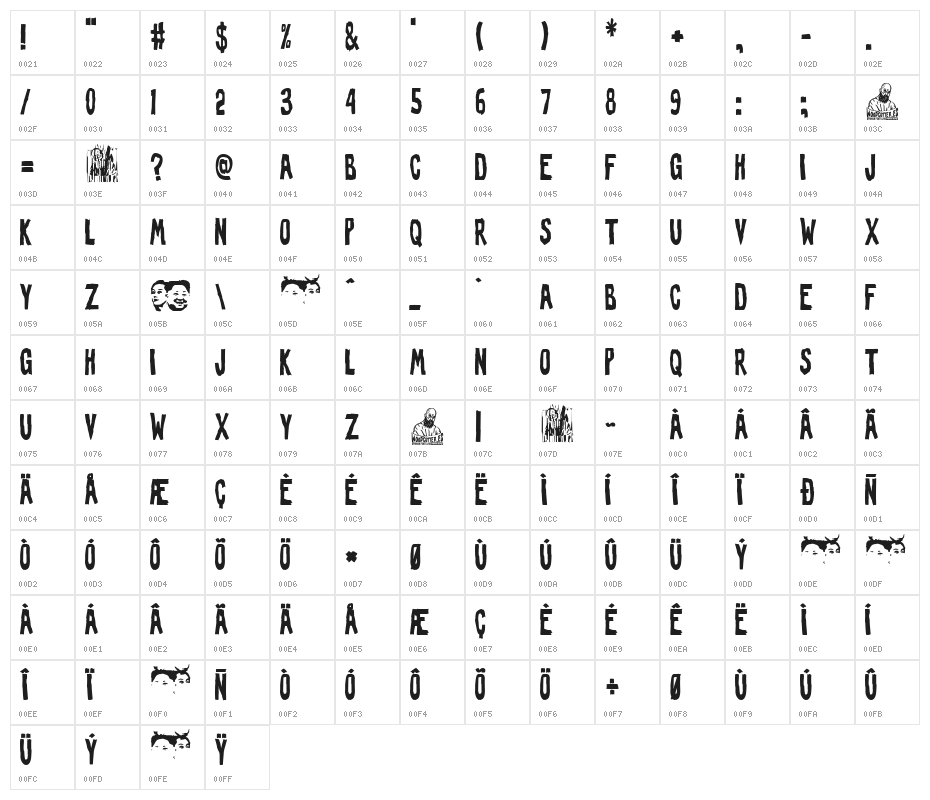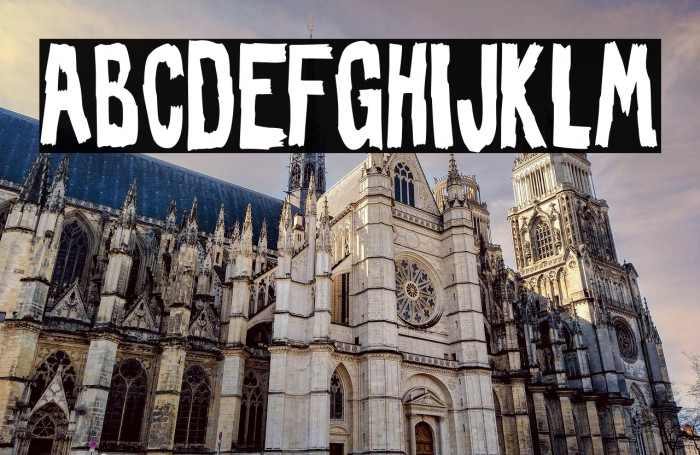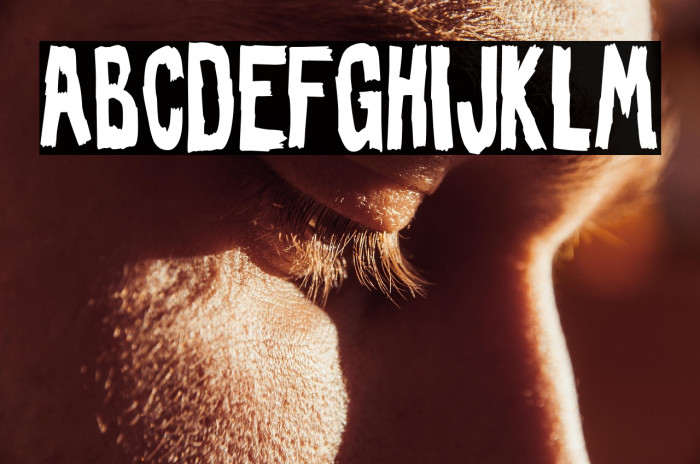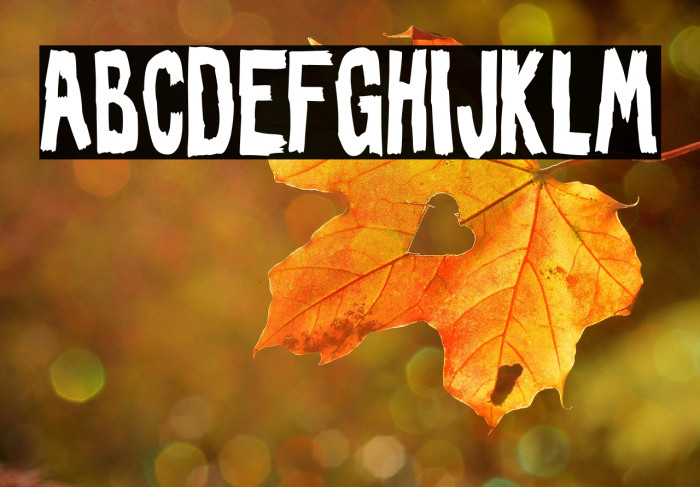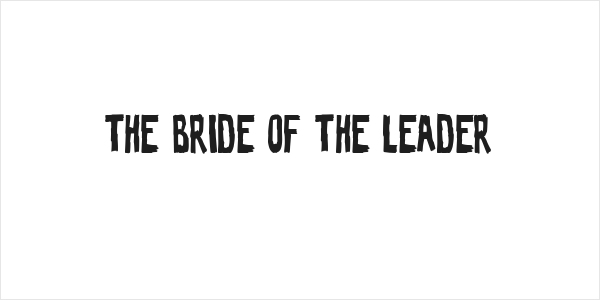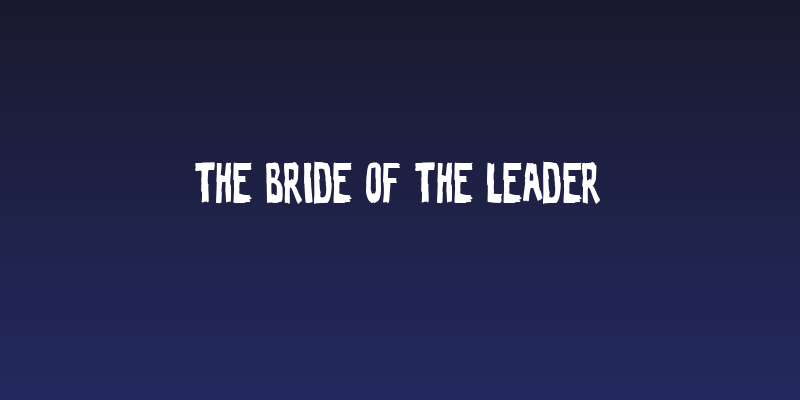
The Bride of the Leader Font
The Bride of the Leader Description
A bold, hand-drawn display font with irregular, jagged edges and uneven stroke widths, giving it a rough, expressive, and energetic appearance. The characters are uppercase, tall, and slightly condensed, with a playful, chaotic feel.
| Overall Style | Decorative, Expressive, Grunge |
| Use Case | Headlines, Posters, Logos, Event Promotions |
| Proposed Projects | Horror movie posters, Halloween invitations, comic book titles, band logos, event flyers, dramatic headlines. |